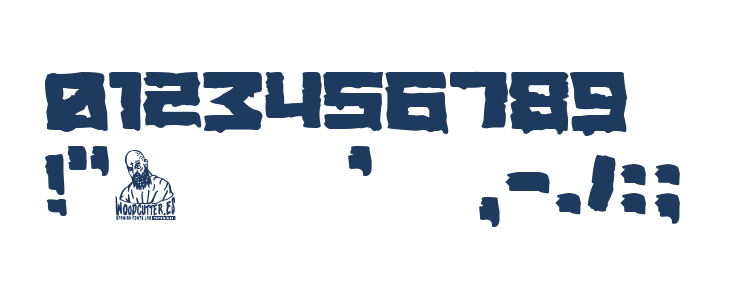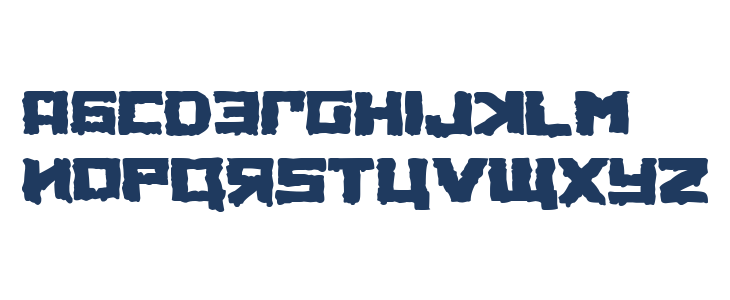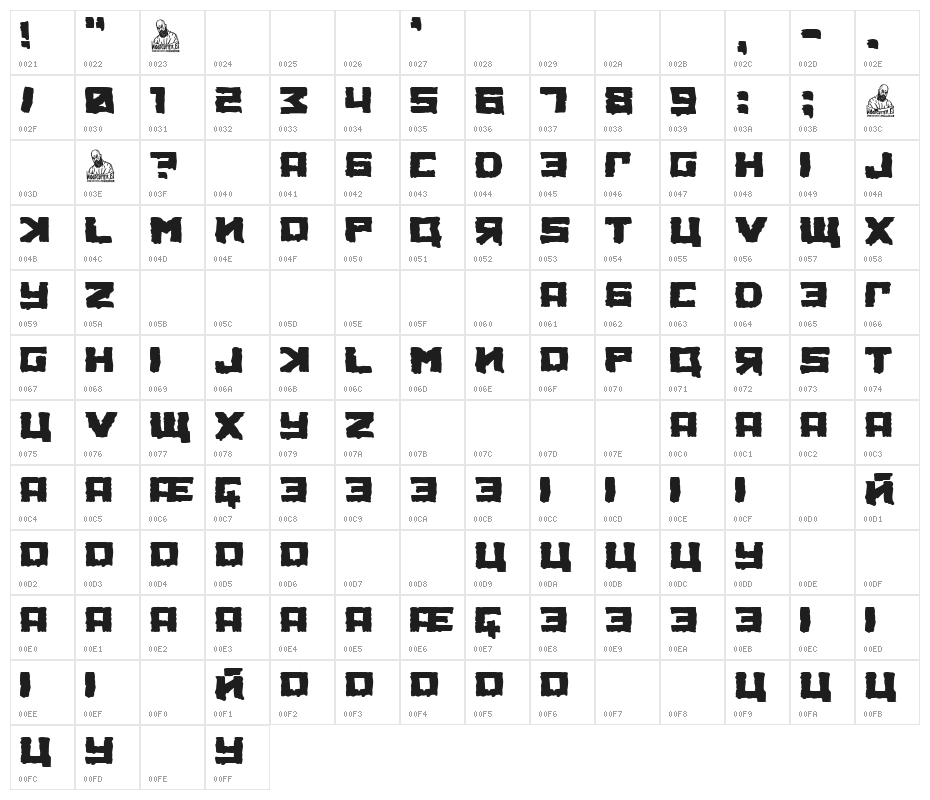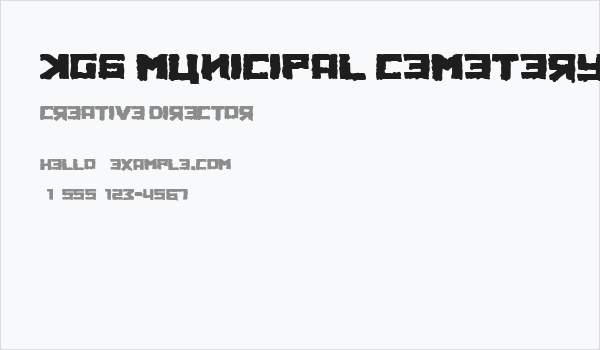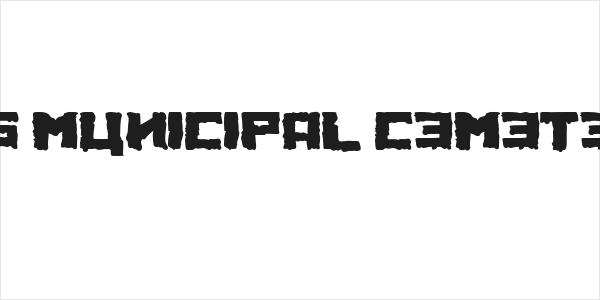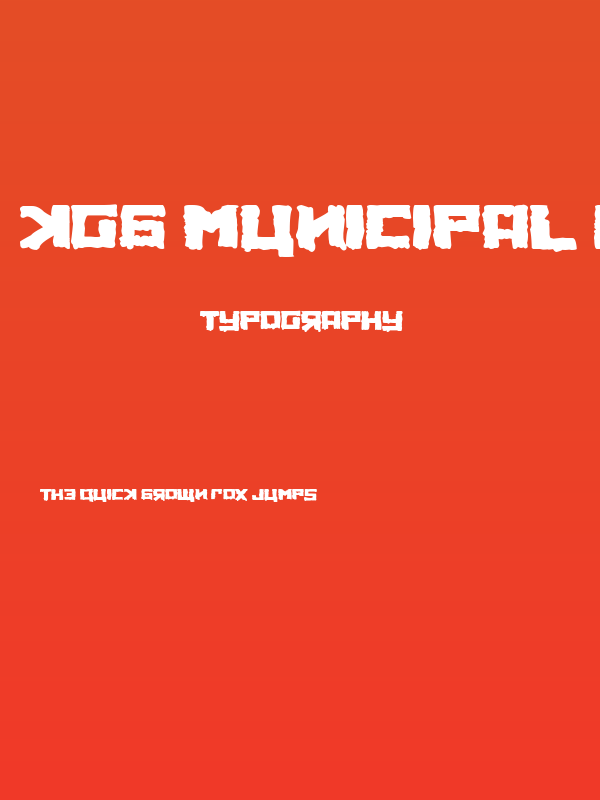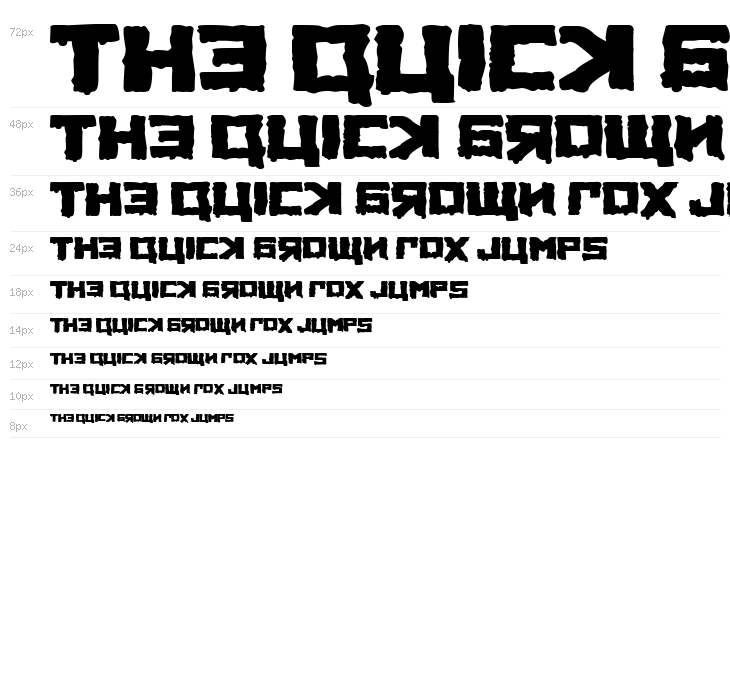
KGB Municipal Cemetery Font
A bold, blocky display font with rough, jagged edges and a distressed, eroded texture, giving it a gritty and unsettling appearance. All characters are uppercase, with geometric proportions and consistent thickness, evoking a sense of decay or horror.
Overall StyleDecorative, Horror, Grunge
Use CaseHeadlines, Posters, Logos
Proposed ProjectsHorror movie posters, Halloween event flyers, video game titles, band logos, comic book covers, themed party invitations.